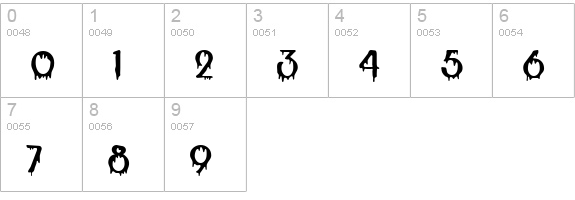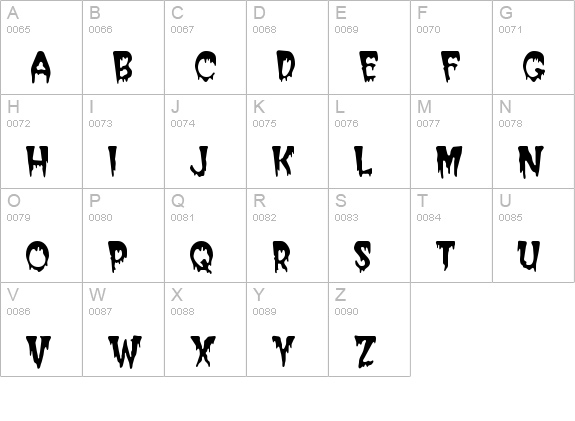
CreepyCondensed Normal Font Details
CreepyCondensed Normal is the standard, neutral variant in the CreepyCondensed typeface family \xE2\x80\x94 well suited to general body text, paragraphs, and standard typographic work.
CreepyCondensed Normal font is a hauntingly eerie typeface that exudes an air of mystery and darkness. With its condensed design and unsettling shapes, this font is perfect for creating chilling designs and spooky projects. Its jagged edges and twisted letterforms add a sense of unease to any text it graces. This font is ideal for Halloween-themed designs, horror movie posters, and anything that requires a touch of the macabre. Whether you're looking to add a creepy vibe to your designs or simply want to stand out with a font that's anything but ordinary, CreepyCondensed Normal font is sure to send shivers down your spine. Best of all, CreepyCondensed Normal font is available for free download at FontsMarket.com. So don't wait - unleash the darkness and download this spine-chilling font today!